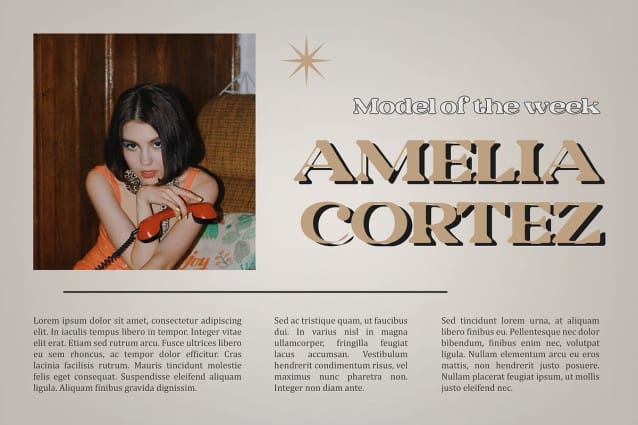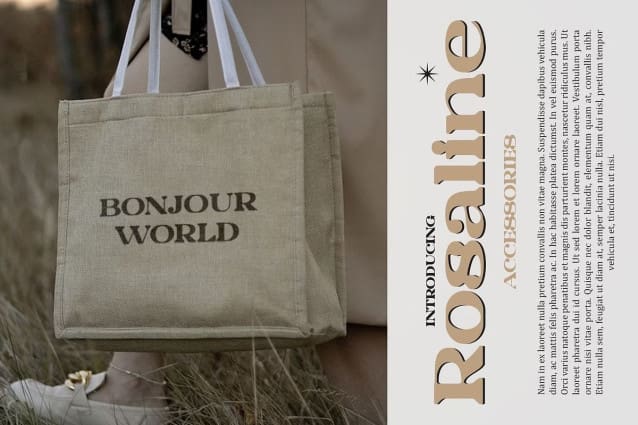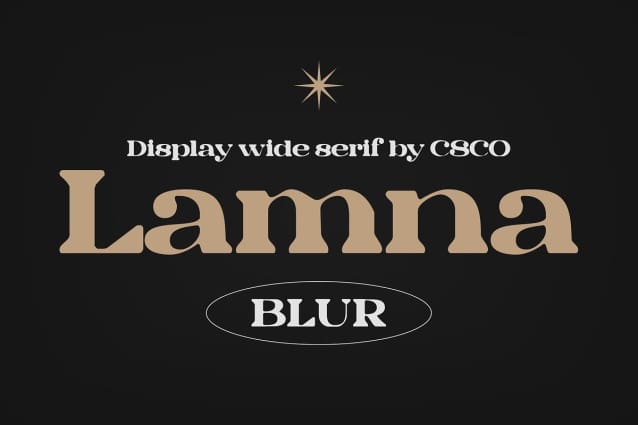
Lamna Blur Font
Lamna Blur Font is a serif font with a retro style and a blur effect, suitable for various designs. Its vintage charm and subtle blur create a nostalgic and artistic look, perfect for adding a retro vibe to posters, packaging, and other creative projects.
With its classic serif forms and blurred edges, Lamna Blur offers a unique twist on retro fonts. The retro style and blur effect combine to create a soft and dreamy appearance, adding a touch of warmth and character to any design.
Whether you’re designing a retro-inspired poster or creating a vintage logo, Lamna Blur is sure to add a nostalgic charm. Its retro style and blur effect make it versatile and suitable for a wide range of design applications, from advertising to branding to editorial design.
Despite its vintage look, Lamna Blur is versatile and easy to use. The font works well in both large and small sizes, making it suitable for a variety of applications. With its blend of retro style and blur effect, Lamna Blur adds a unique and artistic touch to any design.